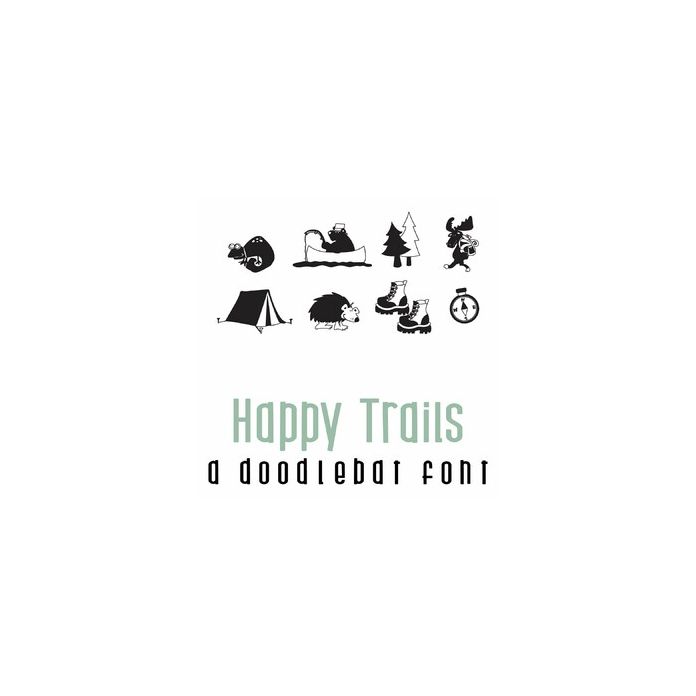
Happy Trails Doodlebat Font
This fun doodlebat font features 26 camping themed images. Perfect for cards, crafts, gifts, decor, scrap book pages, planner stickers and more!